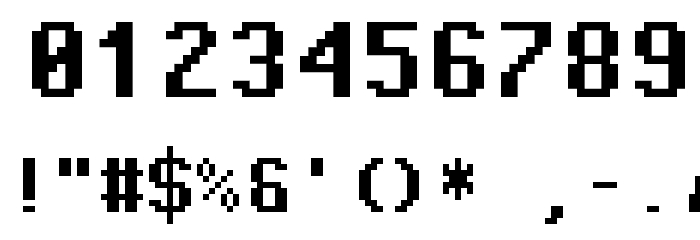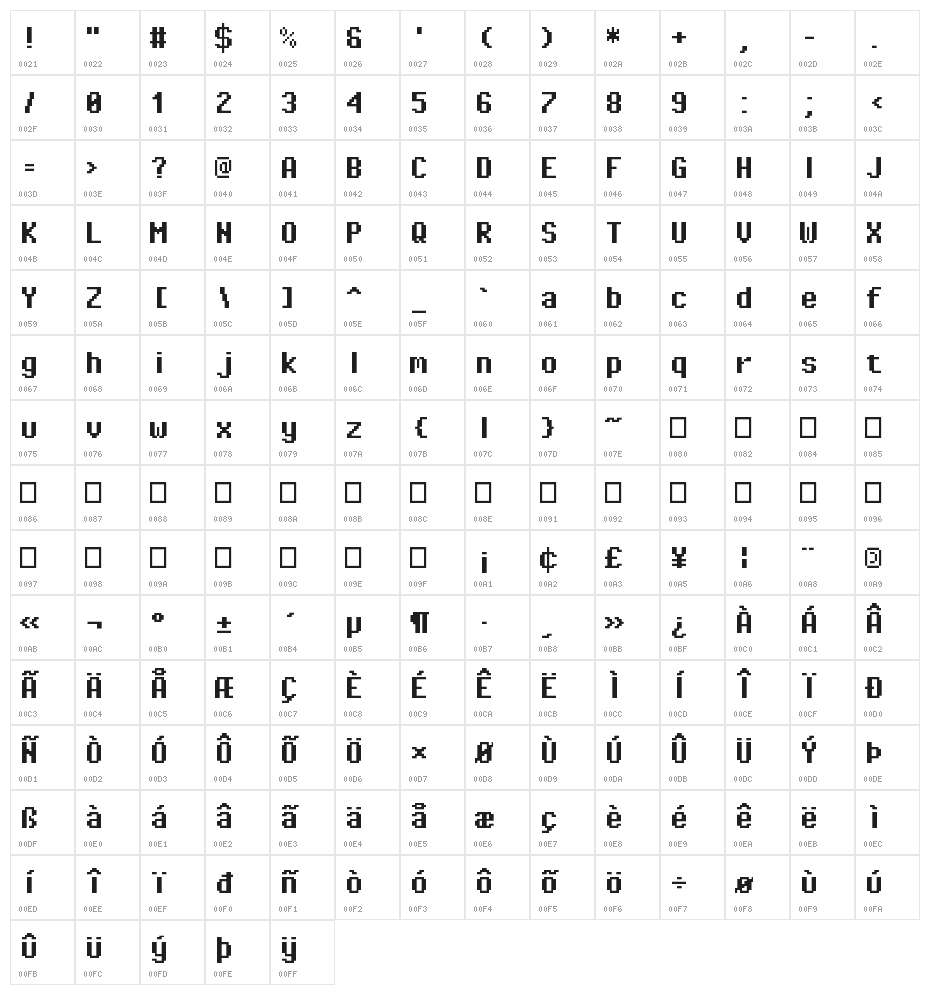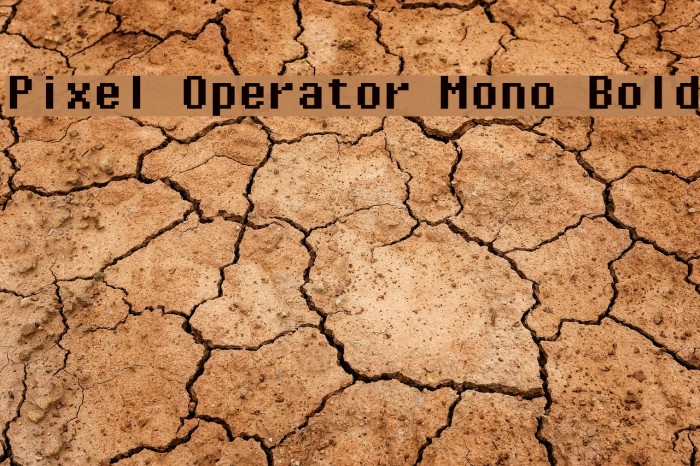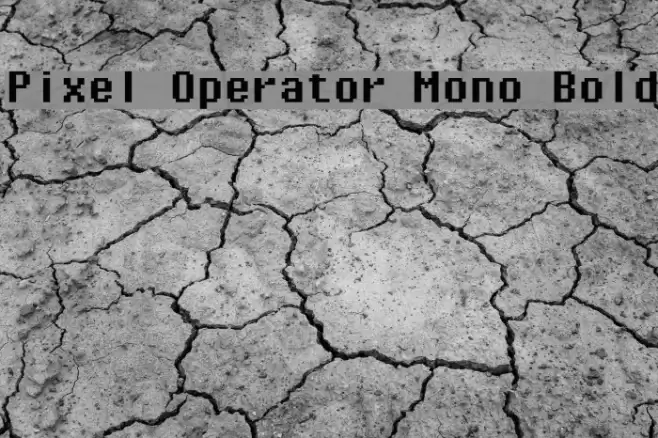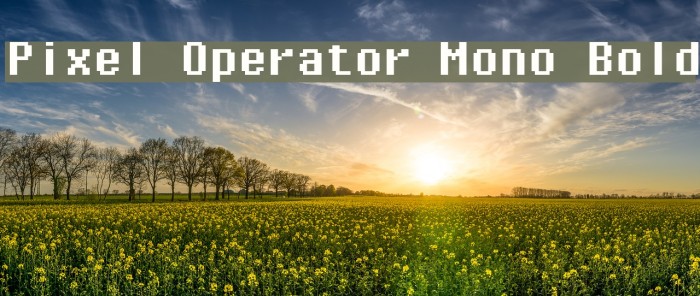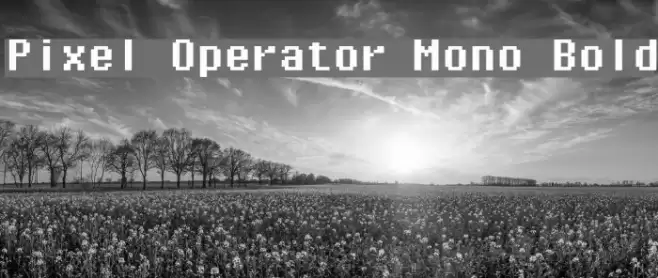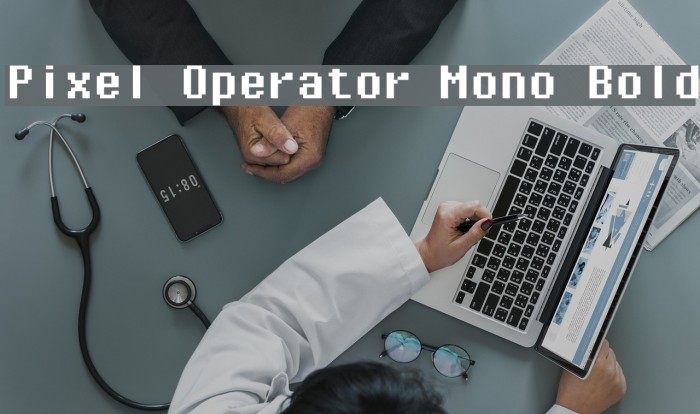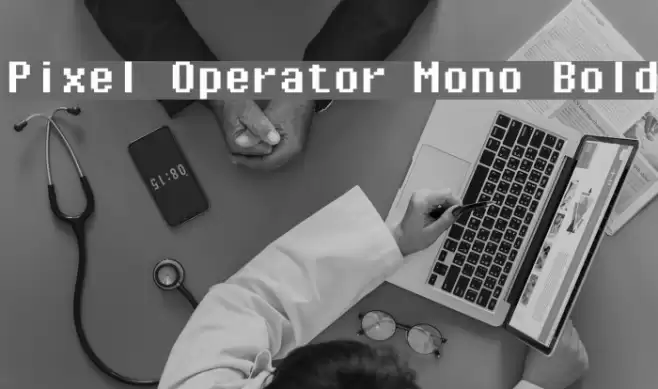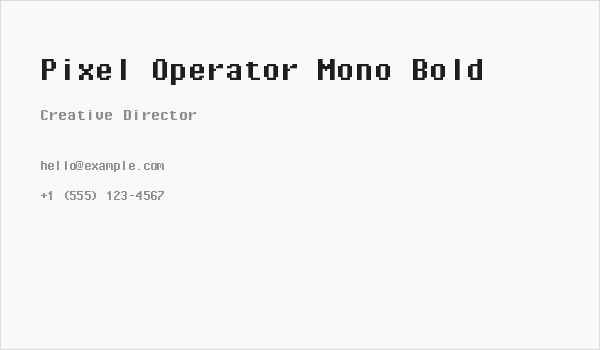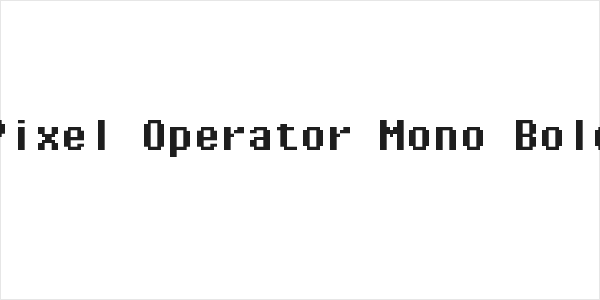
Pixel Operator Mono Bold Font
Pixel Operator Mono Bold Description
This font features a bold, monospaced design with a pixelated aesthetic reminiscent of early computer screens and retro video games. Each character is uniformly spaced, contributing to its monospaced classification. The blocky and geometric shapes of the letters give it a distinct digital feel, making it ideal for projects that aim to evoke nostalgia or a tech-oriented theme. The uppercase and lowercase letters maintain a consistent height, enhancing readability while preserving the pixel art style. The numerals and special characters are similarly styled, ensuring a cohesive look across all text elements.
| Use Case | Logos, Coding interfaces, Digital art |
| Proposed Projects | Ideal for retro video game graphics, tech-themed designs, coding interfaces, and digital art projects. |